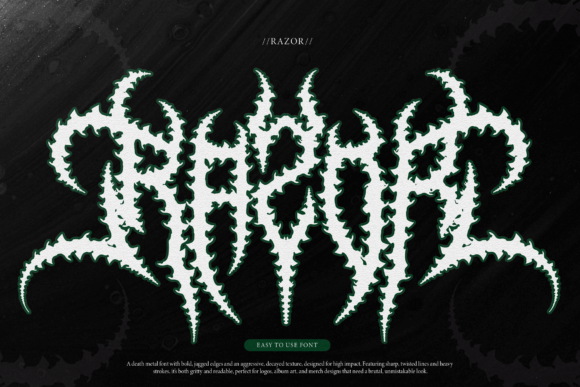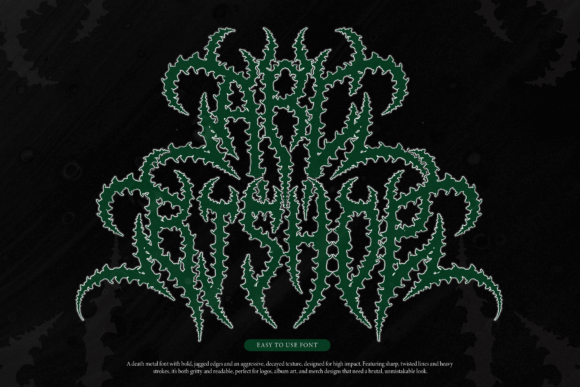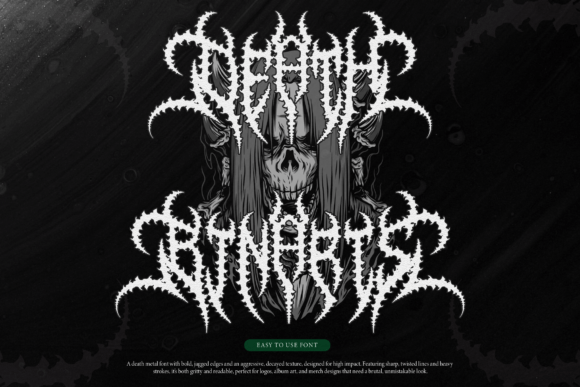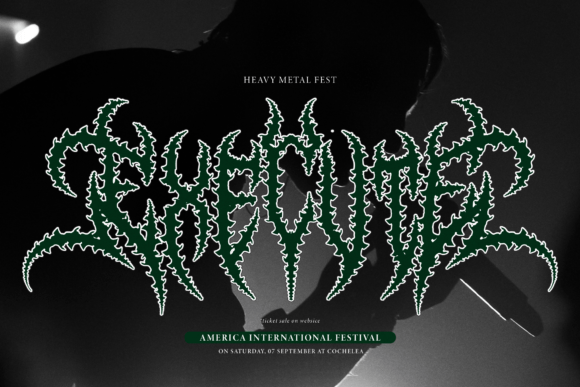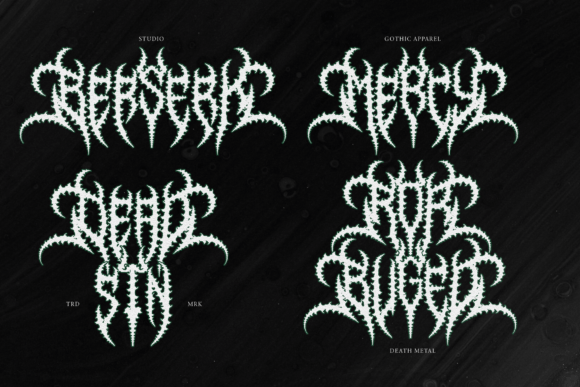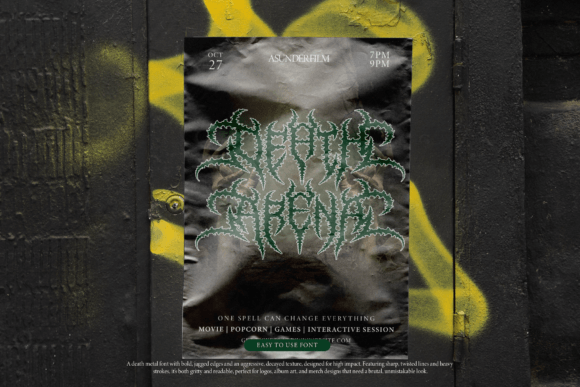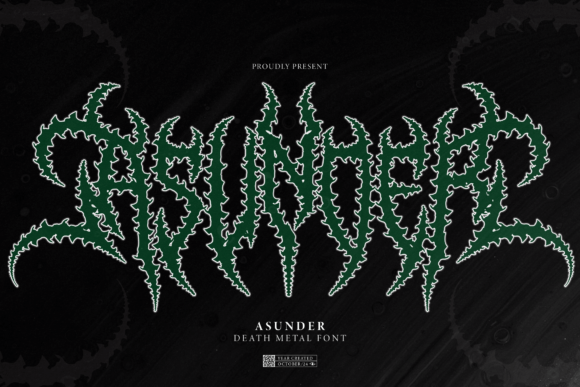
Unleash the Fury: Discover the Asunder Font for Bold Designs
In the realm of typography, few fonts evoke the same level of intensity and raw power as the Asunder Font. This bold, jagged Death Metal font is specifically designed to make a statement, with sharp, broken edges that exude a dark and unrelenting energy. Whether you’re a designer, craftsperson, or simply a fan of heavy metal music, Asunder is the perfect choice for creating striking, attention-grabbing designs that demand to be noticed.
The Birth of Asunder: A Font Forged in Intensity
Asunder is more than just a font – it’s an experience. Inspired by the aggressive, in-your-face aesthetic of Death Metal music, this font is designed to channel the raw energy and emotion of this extreme genre. Each letter is carefully crafted to convey a sense of power and intensity, with jagged edges and sharp, broken lines that give Asunder its unmistakable look.
Key Features of Asunder Font
- Bold and Jagged Design: Asunder’s bold, jagged design makes it perfect for creating eye-catching headlines, logos, and graphics that demand attention.
- Sharp, Broken Edges: The font’s sharp, broken edges give it a rough, unfinished look that’s perfect for heavy metal or horror-themed designs.
- Dark and Intense Aesthetic: Asunder’s dark, intense aesthetic makes it ideal for designs that require a strong, aggressive look.
- Perfect for Heavy Metal or Horror Designs: Asunder is specifically designed with heavy metal and horror designs in mind, making it the perfect choice for fans of these genres.
Using Asunder Font in Your Designs
Asunder is an incredibly versatile font that can be used in a wide range of design applications. Here are just a few ideas to get you started:
- Music Logos and Branding: Asunder is perfect for creating bold, eye-catching logos and branding materials for heavy metal bands, music festivals, and music-related businesses.
- Horror and Thriller Designs: The font’s dark, intense aesthetic makes it ideal for horror and thriller-themed designs, including movie posters, book covers, and video game art.
- Merchandise and Apparel: Asunder is a great choice for creating bold, attention-grabbing merchandise and apparel, including t-shirts, posters, and stickers.
Tips and Tricks for Working with Asunder Font
Here are a few tips and tricks to help you get the most out of Asunder Font:
- Use it sparingly: Asunder is a bold, attention-grabbing font that can quickly overwhelm your design if overused. Use it sparingly to create emphasis and draw attention to key elements.
- Experiment with colors: Asunder looks great in a range of colors, from bold and bright to dark and muted. Experiment with different colors to find the perfect look for your design.
- Pair it with complementary fonts: Asunder can be paired with a range of complementary fonts to create a unique and visually appealing design.
In conclusion, Asunder Font is a powerful, bold font that’s perfect for designers, craftspersons, and fans of heavy metal music. With its jagged edges, sharp lines, and dark, intense aesthetic, Asunder is the perfect choice for creating striking, attention-grabbing designs that demand to be noticed. So why wait? Download Asunder Font today and unleash the fury in your designs!